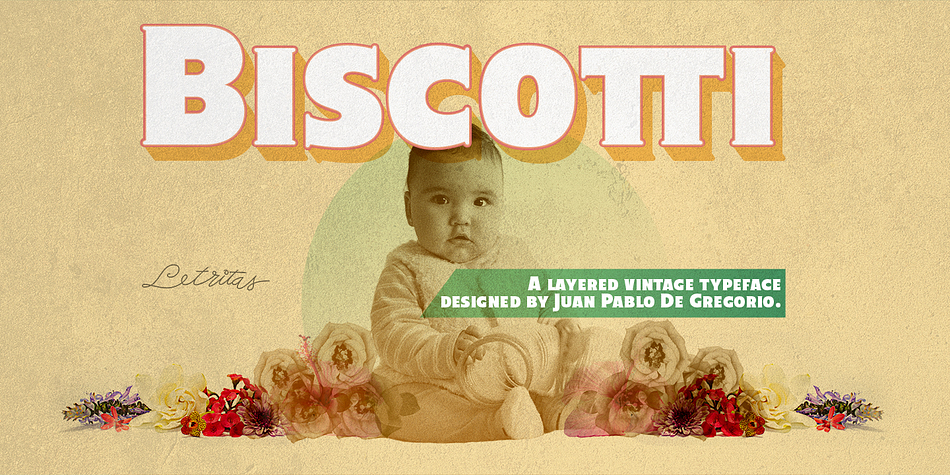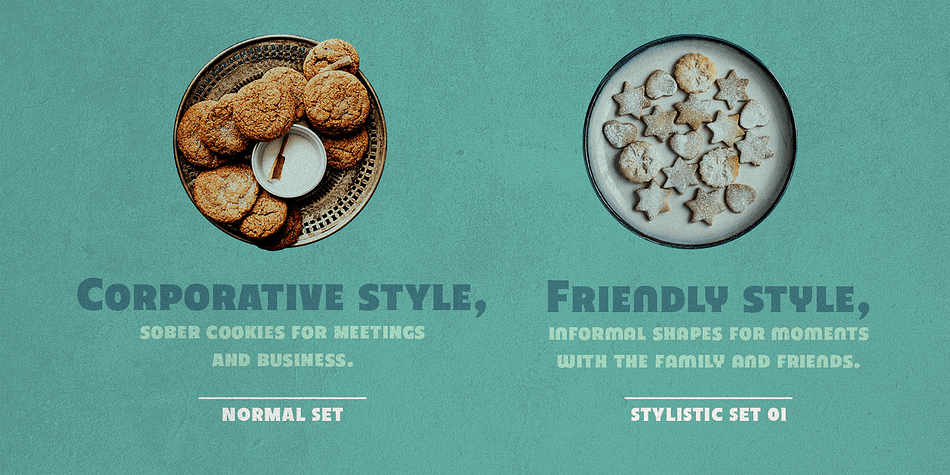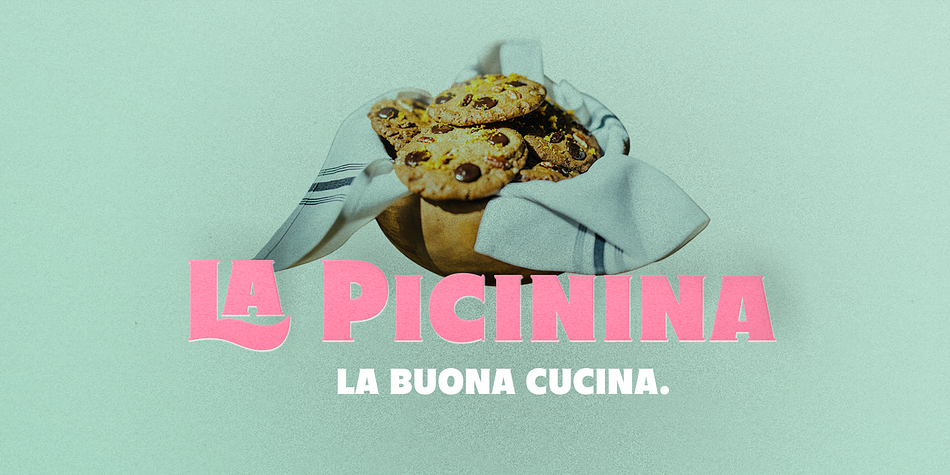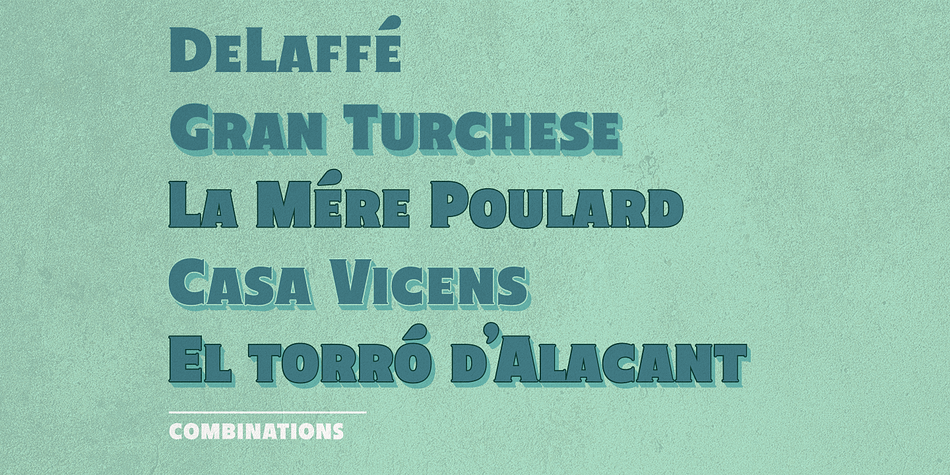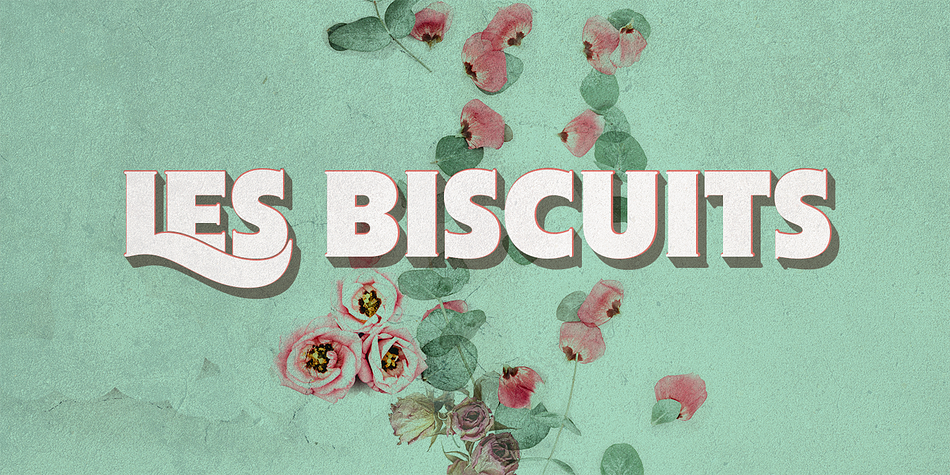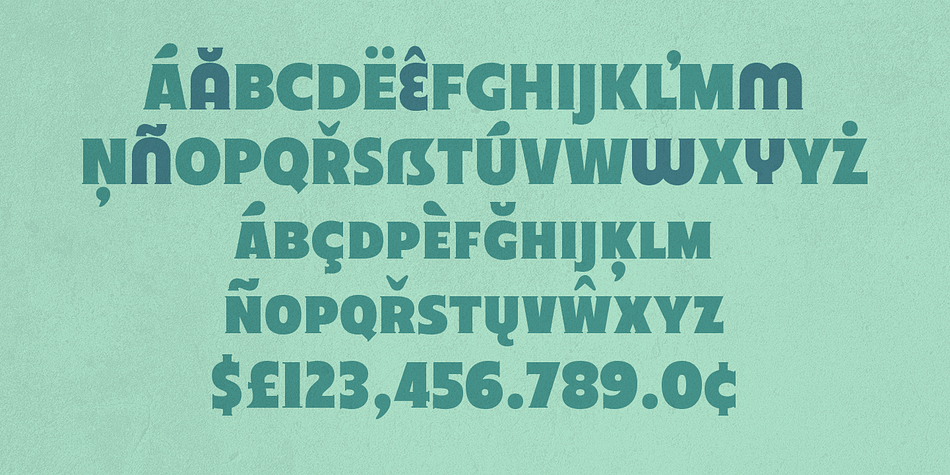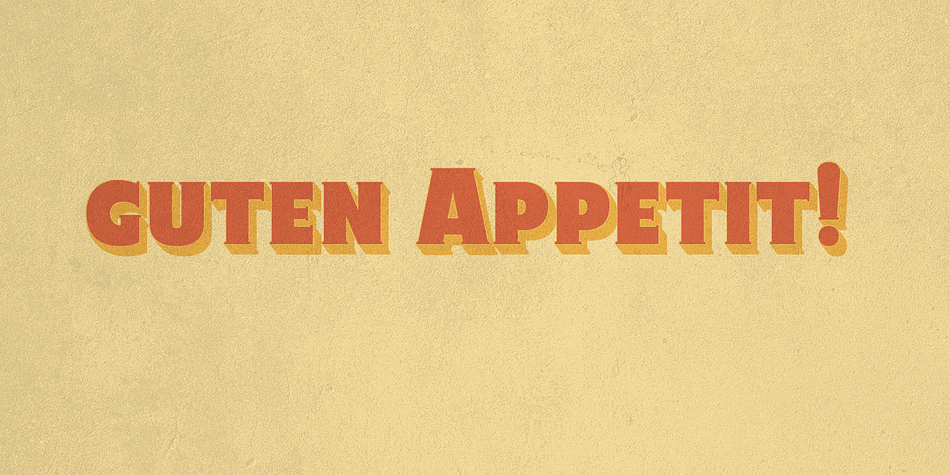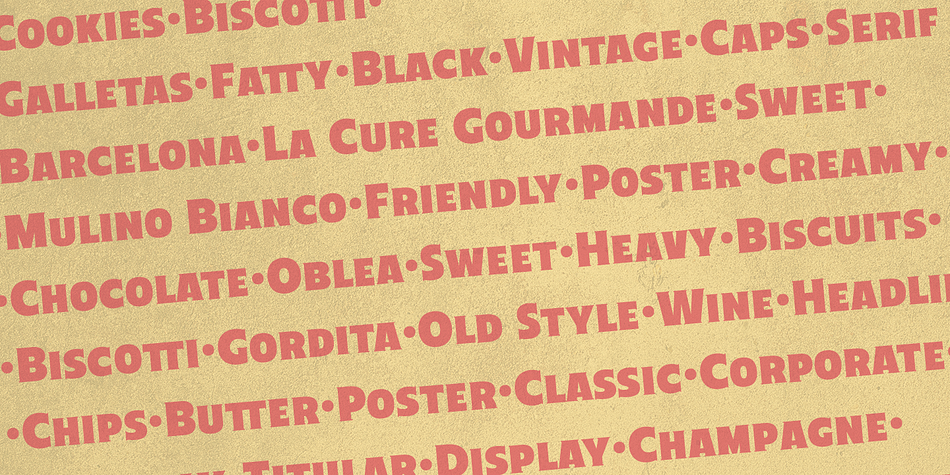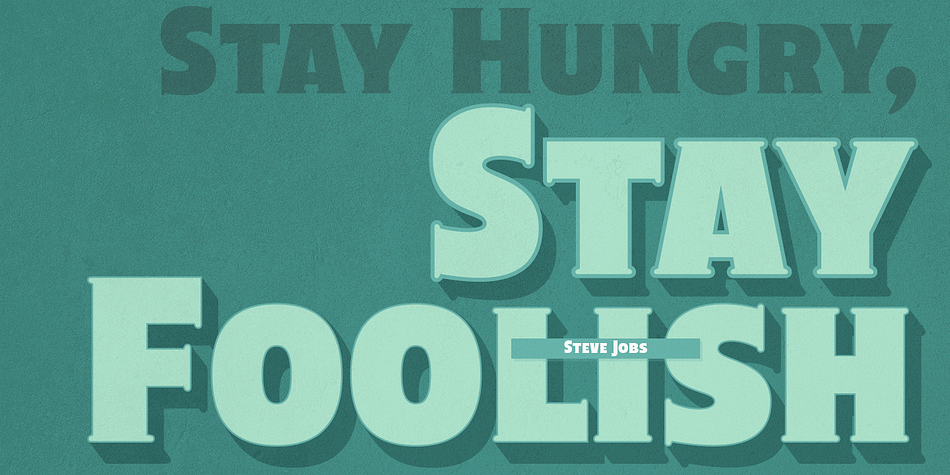
Designed by Juan Pablo De Gregorio, Biscotti is a display serif font family. This typeface has four styles and was published by Letritas.
The concept of Biscotti rised from a personal research into a system of styles that we commonly consider “vintage”.
One above all, the Victorian typography that has been rediscovered and widely re-studied during the 70s. Today, thanks to the technology innovation in digital typography fields, Biscotti is certainly an interesting subject which expresses an appassionate and nostalgic homage to a vintage font, seen from the perspective of a technical inspiration.
Biscotti is composed of two styles: the “default” and the alternative one. The first is of course more conservative and formal, while the alternative formally chooses a change of the diagonal lines into curves, so it creates a much more friendlier reading.
Biscotti consists of 4 sources that can be combined by layers in order to form different ways of reading.
This renewed effect increases exponentially the potential use range of this typography.
Biscotti has 517 characters and is composed for 220 Latin languages.